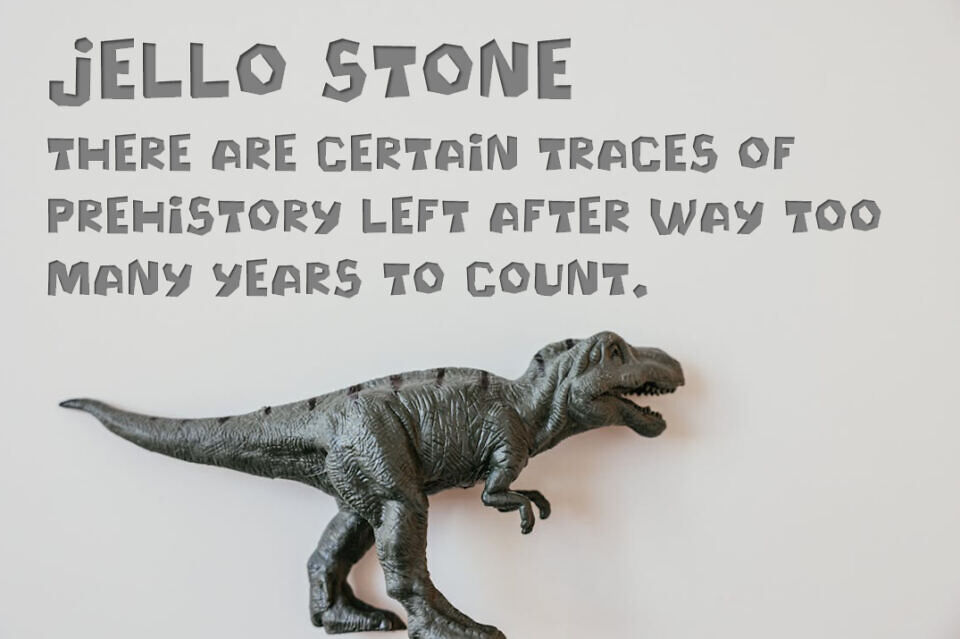
Jello Stone is a playful, rocky cartoon font created by Heaven Castro. Its rugged, uneven letterforms mimic the texture of Stone Age carvings, evoking a prehistoric feel.
The font features bold, jagged edges and a whimsical style, reminiscent of Yellowstone National Park, from which its name is playfully derived. Jello Stone blends rustic charm with a lighthearted twist, making it ideal for fun, retro-themed designs.